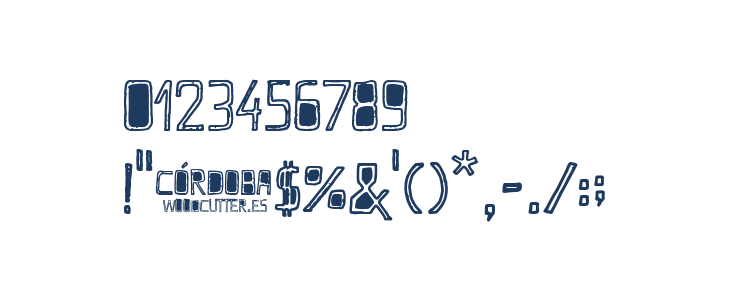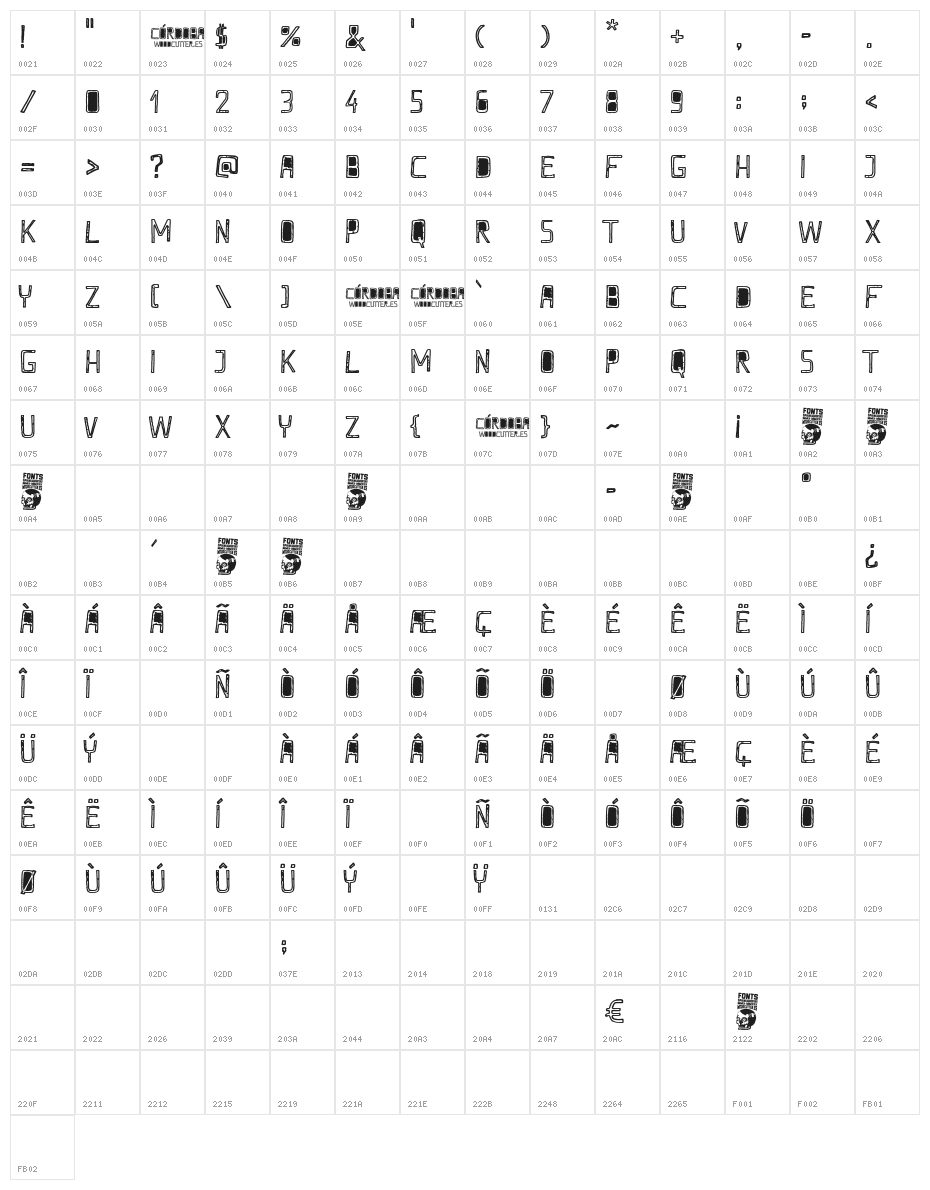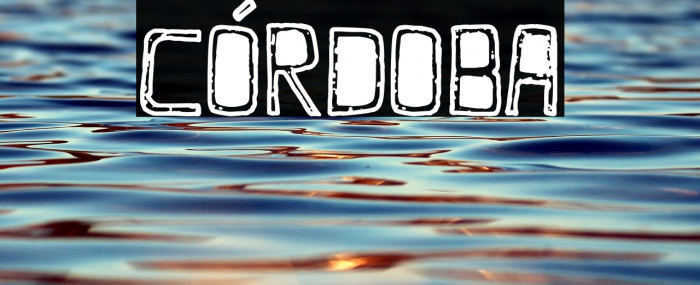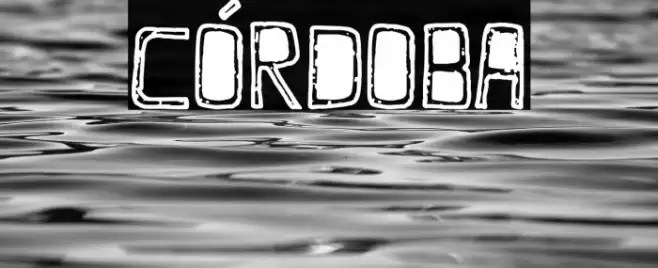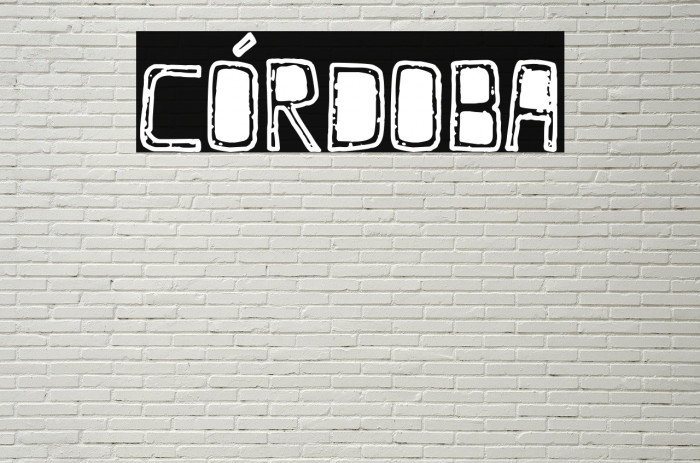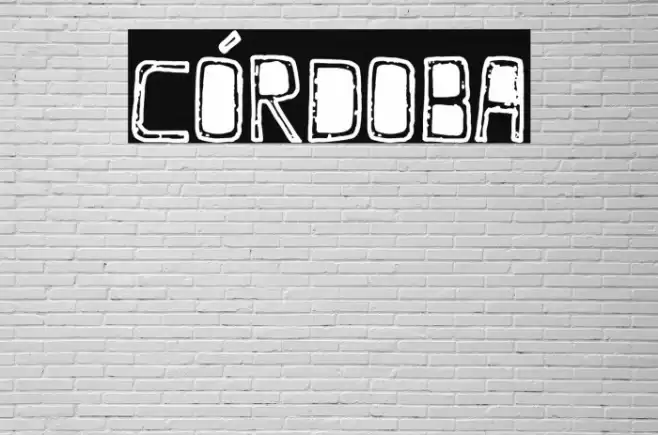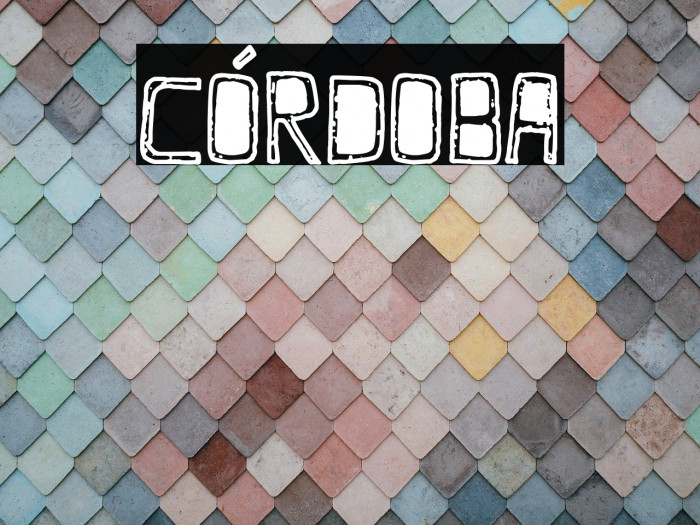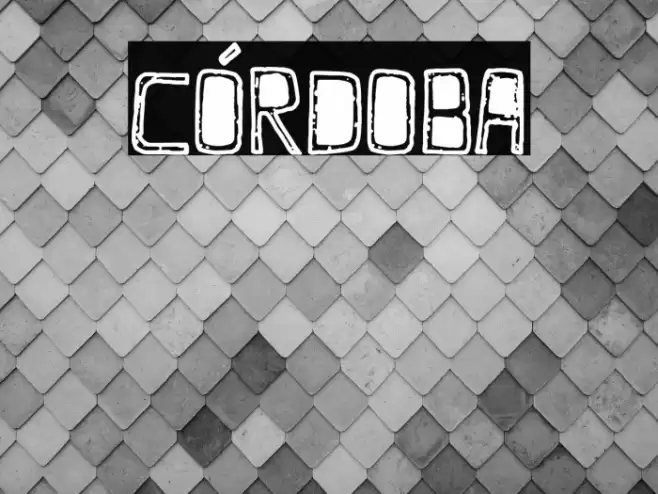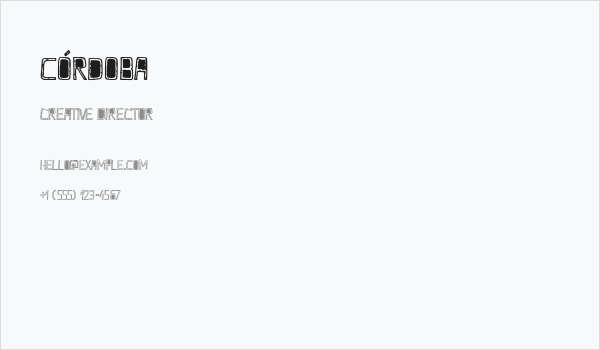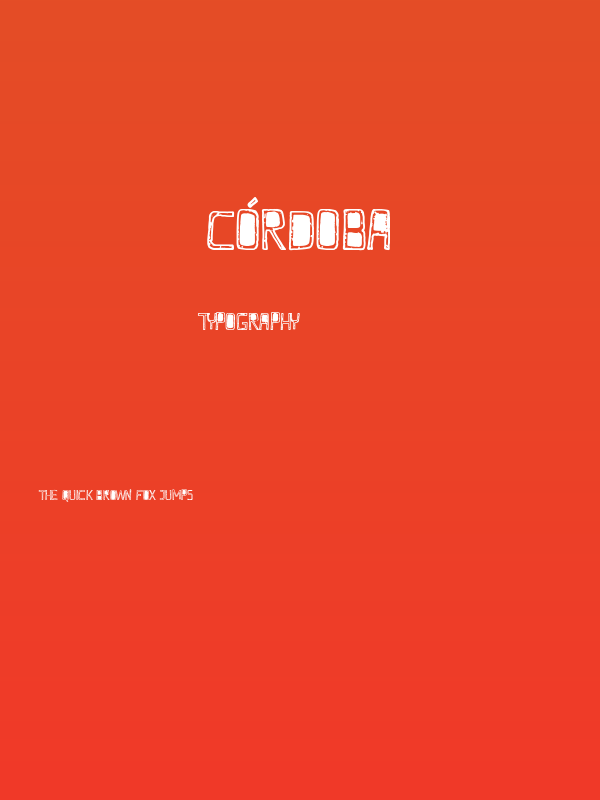
Córdoba Font
Córdoba Description
This font features a rugged, hand-drawn style with a distressed appearance, giving it a unique and artistic look. The characters are outlined with uneven, sketch-like strokes, creating a textured and organic feel. The uppercase and lowercase letters maintain a consistent style, with a playful yet edgy vibe. Numbers and special characters follow the same design, ensuring a cohesive appearance across all glyphs. This font is ideal for projects that require a bold, creative touch, such as posters, album covers, or branding for artistic ventures.
| Proposed Projects | Ideal for posters, album covers, artistic branding, and creative projects. |